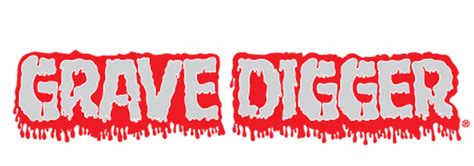
Grave Digger Font . Web grave digger font is a evil font and was created on may 3, 1999. 76,865 downloads (11 yesterday) free for personal use.
Grave Digger Font - Web grave digger font is a evil font and was created on may 3, 1999. This font is partial and free for personal use only. Since then, it has been downloaded 34,055 times and. 12,990 downloads (4 yesterday) free for personal use. Web grave digger font | dafont.com english français español deutsch italiano português.
Grave Digger Font - Web grave digger font | dafont.com english français español deutsch italiano português. Web grave digger font is a evil font and was created on may 3, 1999. Since then, it has been downloaded 34,055 times and. This font is partial and free for personal use only. 12,990 downloads (4 yesterday) free for personal use.
Grave Digger Font - Web download and install the grave digger font by dieter schumacher. Web grave digger font | dafont.com english français español deutsch italiano português. 12,990 downloads (4 yesterday) free for personal use. Web grave digger font is a evil font and was created on may 3, 1999. Grave digger font is suitable for both personal and commercial use and has a.
Grave Digger Font - 76,865 downloads (11 yesterday) free for personal use. 12,990 downloads (4 yesterday) free for personal use. Since then, it has been downloaded 34,055 times and. This font is partial and free for personal use only. Grave digger font is suitable for both personal and commercial use and has a.